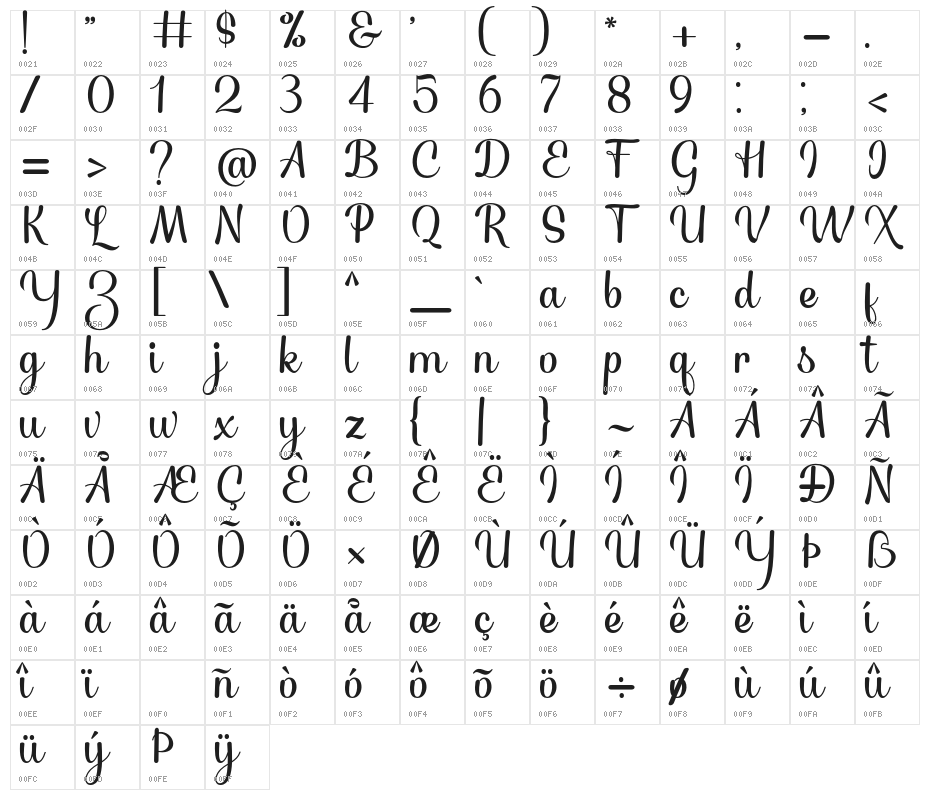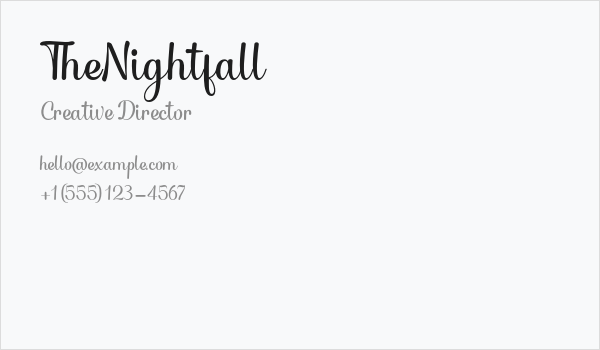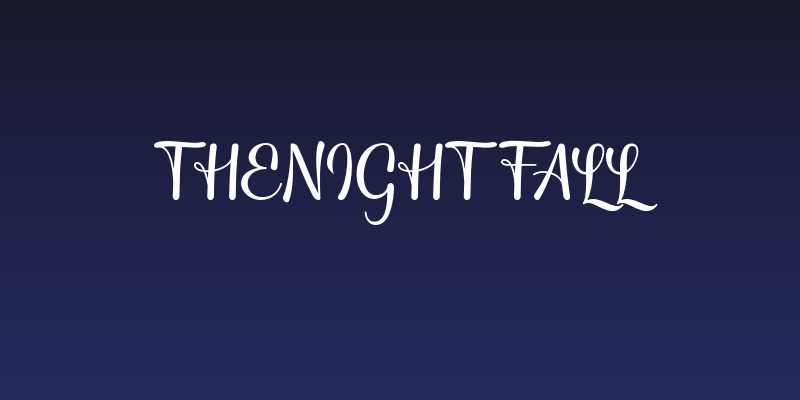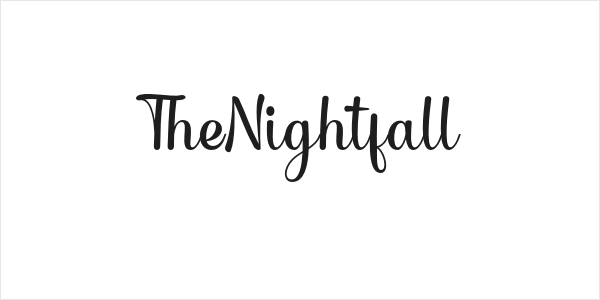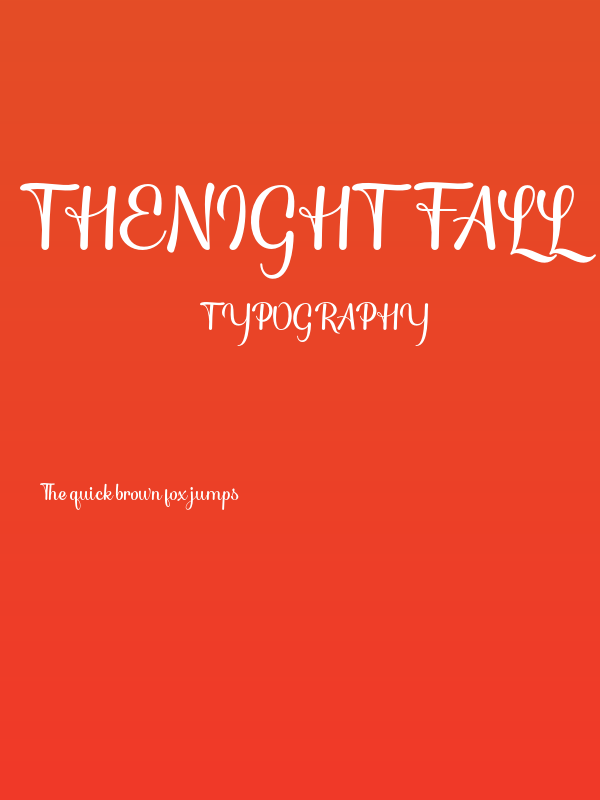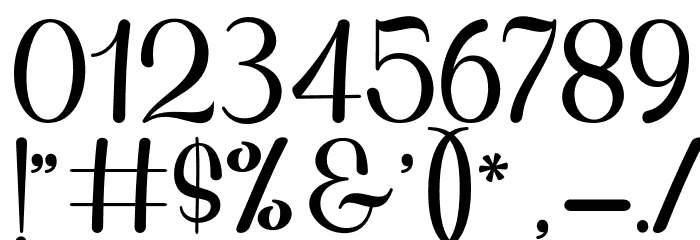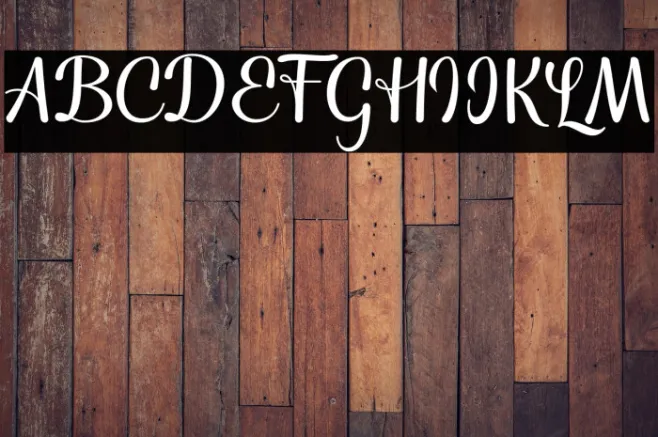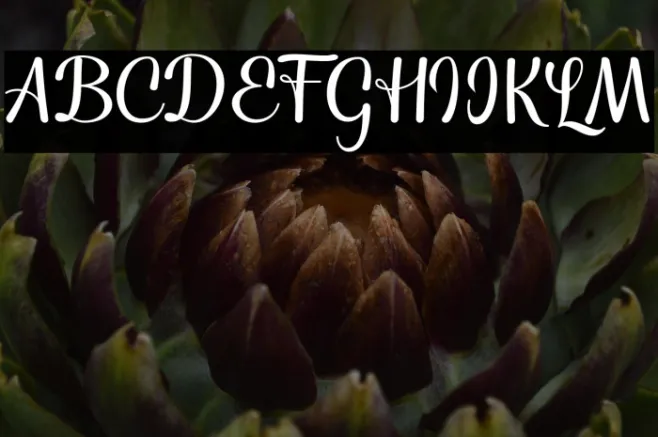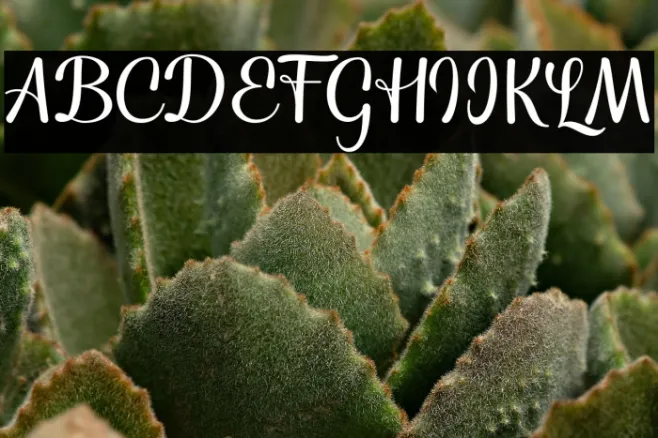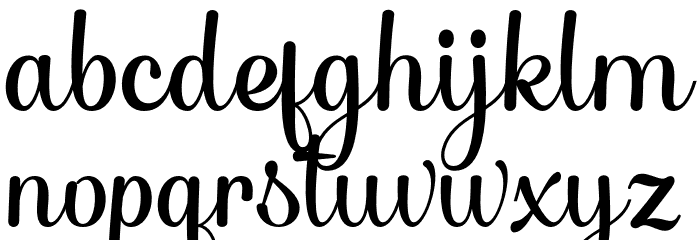
TheNightfall Font
TheNightfall Description
This font features a flowing, cursive style with elegant loops and swirls, giving it a handwritten appearance. The uppercase letters are bold and slightly slanted, while the lowercase letters maintain a consistent flow with smooth connections between characters. The numerals are distinct and maintain the same cursive style, adding a touch of sophistication. Special characters are creatively integrated, maintaining the overall aesthetic. This font exudes a sense of elegance and charm, making it suitable for projects that require a personal touch.
| Use Case | Logos, Invitations, Personal branding |
| Proposed Projects | Ideal for wedding invitations, greeting cards, personal branding, and elegant signage. |